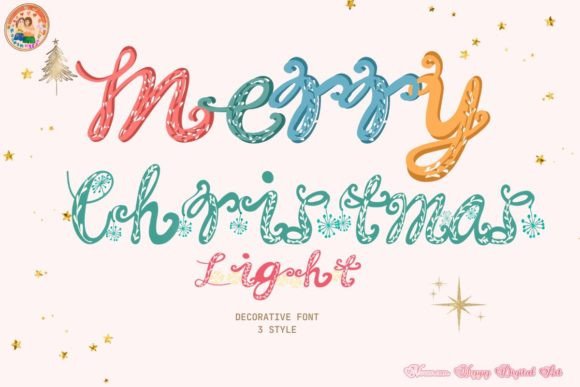
If you’re looking to bring the magic of the holiday season into your designs, the Christmas Light Font is exactly what you need. This glowing, festive typeface captures the cheerful energy of Christmas lights — making it perfect for holiday cards, banners, posters, invitations, and even digital content.
What Is a Merry Christmas Light Font?
The Merry Christmas Light Font is a decorative typeface inspired by the twinkling glow of string lights that brighten up homes during Christmas. Each letter looks illuminated or outlined with glowing bulbs, giving your text a cozy, festive, and joyful appearance.
Designers use this font to add holiday charm to a variety of projects, such as:
Christmas greeting cards
Social media graphics
Sale and promotional posters
Event invitations
YouTube thumbnails
Website headers and banners
This style of font instantly brings warmth and personality to any design, helping your content stand out during the festive season.
Why Choose the Merry Christmas Light Font?
There are many Christmas fonts online, but the Christmas Light Font has something special — it blends style, readability, and festivity in one design. Here’s why it’s one of the most popular holiday fonts:
Festive Glow: The illuminated style makes your text look alive and joyful.
Professional Quality: The font is carefully crafted to maintain readability even at smaller sizes.
Works for Print & Digital: Great for both online designs and printed projects like posters, cards, and invites.
Best Uses of the Christmas Light Font
1. Christmas Greeting Cards
Give your holiday cards a personal and glowing touch. Whether it’s for friends, family, or clients, this font helps your words feel warm and festive.
2. Social Media Graphics
Want to post a “Merry Christmas” message on Instagram or promote a festive event? The glowing design will catch your audience’s attention instantly.
3. Christmas Sale Designs
If you’re running a store or online business, this font works perfectly for your “Holiday Sale” or “Christmas Discount” banners and flyers.
4. Event Invitations
From office parties to family gatherings, using a Christmas light-style font on invitations sets the right mood and theme for your celebration.
5. YouTube and Video Titles
Video creators love this font because it makes thumbnails and title screens look bright, playful, and eye-catching.
Design Tips for Using Christmas Light Fonts
To make your designs look professional and festive, keep these tips in mind when using the Christmas Light Font:
Use dark backgrounds like deep blue, red, or green to make the glowing letters stand out.
Avoid cluttered layouts. Let the font be the highlight of your design.
Add light effects such as sparkles or reflections to enhance the glow.
Pair with simple fonts. Combine it with clean sans-serif or script fonts for text balance.
Adjust letter spacing for better readability, especially in titles and large text areas.
Following these simple design principles will help your holiday visuals look elegant and professional.